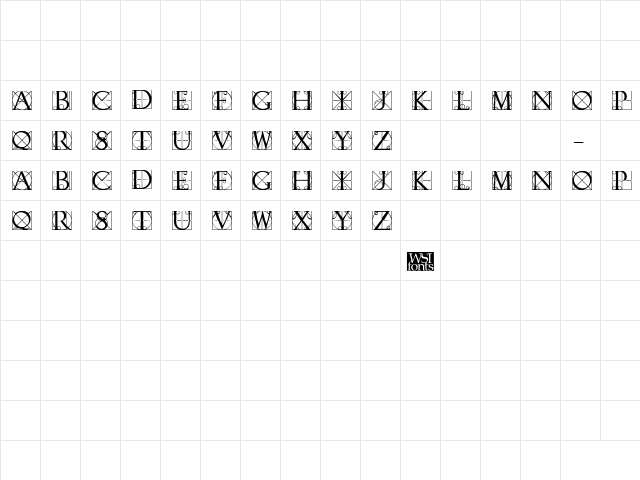
TypographerDisplay Regular
Design Context for TypographerDisplay Typeface
TypographerDisplay is built around its visual character rather than neutral utility — its distinctive forms are designed to make an impression at display sizes.
Font Pairing: Pair with a clean neutral sans-serif for body copy to let TypographerDisplay's character lead without overwhelming the composition.
Pro Tip: Use TypographerDisplay exclusively at display sizes — it was designed to be seen, not read at length. Let a neutral companion handle body copy.